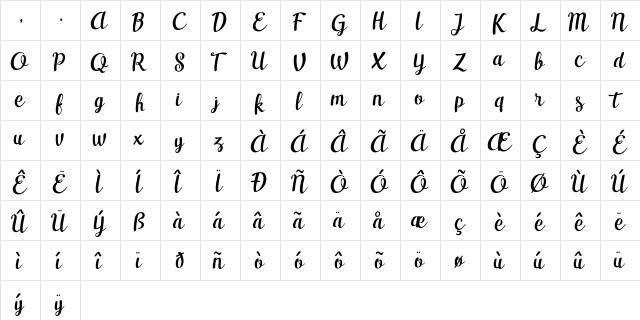
Casseron Script Regular Font Preview
Casseron Script Regular
Casseron Script Regular Font Details
Design Context for Casseron Script Typeface
Casseron Script brings a calligraphic fluidity to the page — its connecting strokes and expressive curves give it an unmistakably human quality.
Font Pairing: Combine Casseron Script with a simple geometric sans for maximum contrast — the tension between flowing curves and clean structure is a classic typographic pairing.
Pro Tip: Use Casseron Script for short runs of text — names, titles, or taglines. Extended body copy in script faces tires the eye quickly.